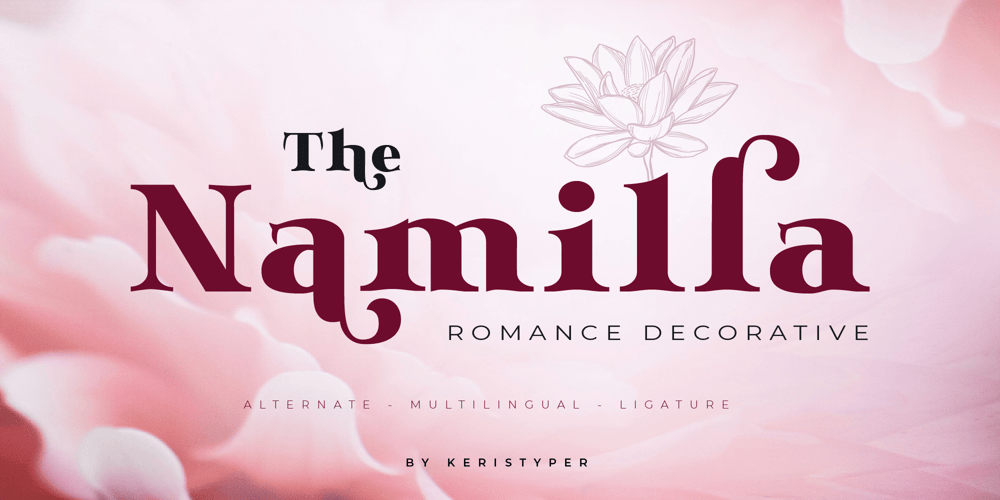
Namilla Font Family was designed by Tezar Tantular and published by Keristyper Studio. Namilla contains 1 styles and family package options. Introducing Namilla, a unique romance display serif typeface with a beautiful touch. This font is good for logo design, Social media, Movie Titles, Books Titles, short text even long text letters, and good for your secondary text font with script, sans, or serif.**Featured:*** Standard Uppercase & Lowercase* Numeral & Punctuation* Multilingual : ä ö ü Ä Ö Ü ß ¿ ¡* Alternate & Ligature* PUA encodedWe recommend programs that support the OpenType feature and the Glyphs panel such as Adobe applications or Corel Draw. so you can use all the variations of the glyphs.Hope you enjoy our fonts!